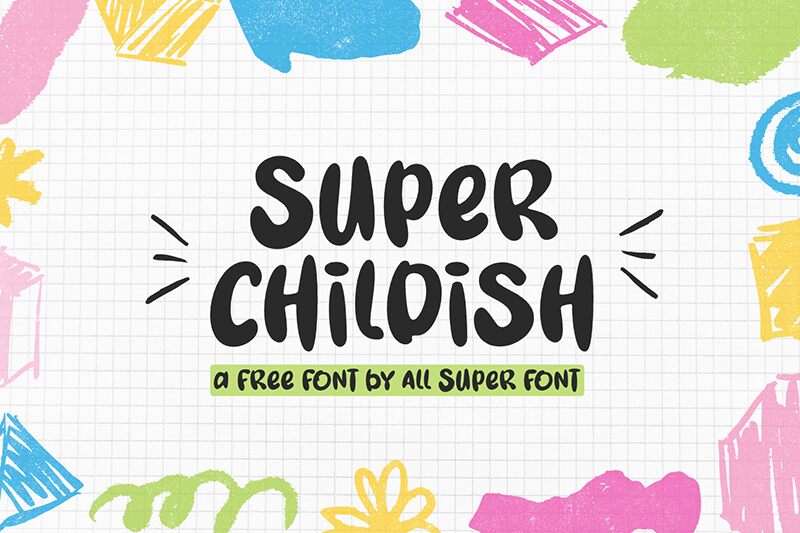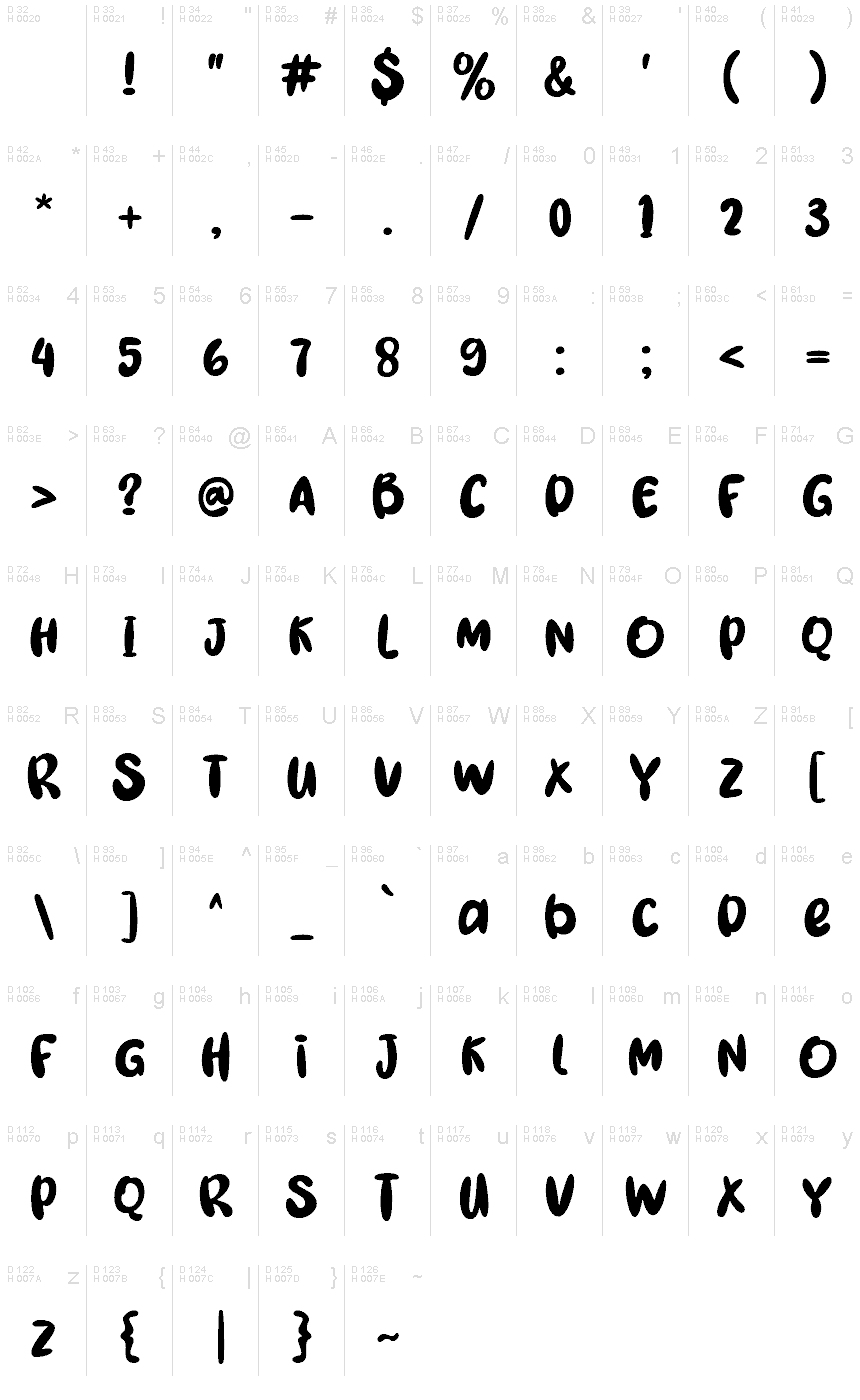
Super Childish
Super Childish font by fsuarez913 mimics a child's handwriting with subtle imperfections. Designed as a cartoon and display font, it can particularly suit graphic design projects for children. The free handwritten font adds a texural element to logos, T-shirts, illustrations, and web pages.
Use it for birthday invitations, product packaging, books, stickers, activity pages for kids magazines, resorts or school logos, catalog covers; even movie titles will shine in this playful style.